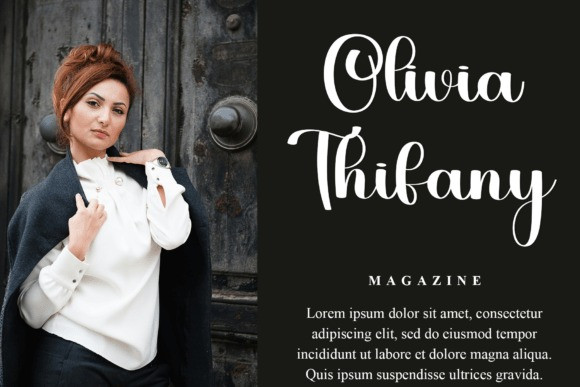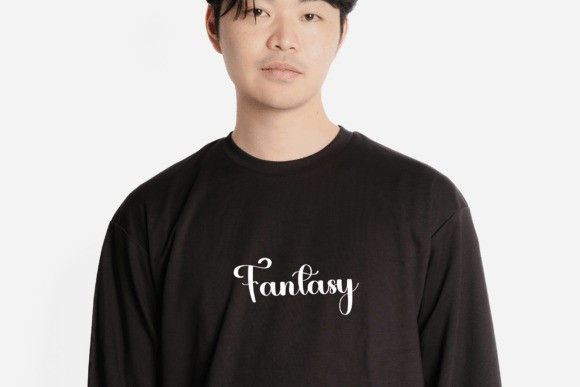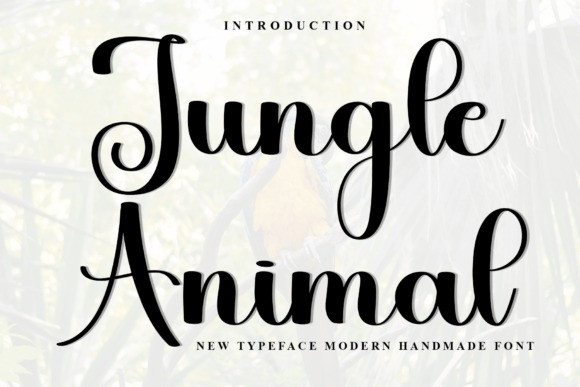
Jungle Animal Script Font
Jungle Animal Script Font is a flowing handwritten font, described by an elegant touch, perfect for your favorite projects. Fall in love with its incredibly distinct and timeless style and use it to create spectacular designs!